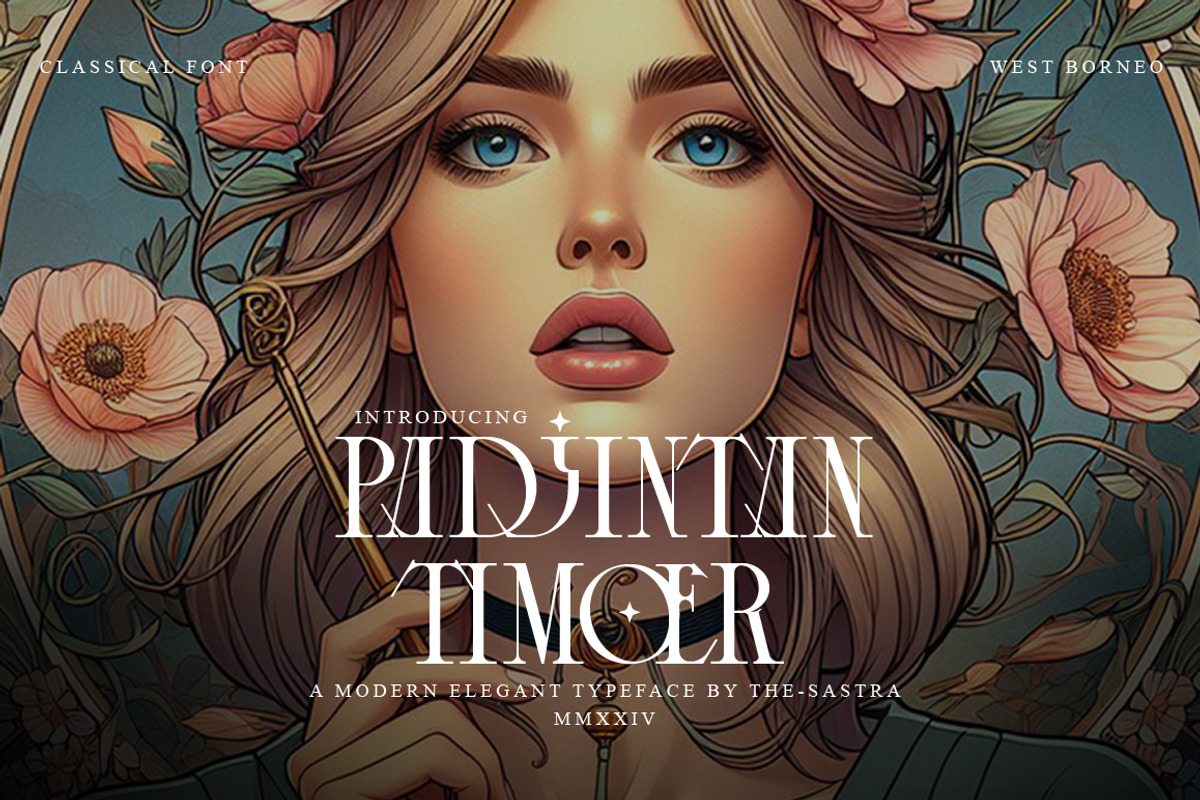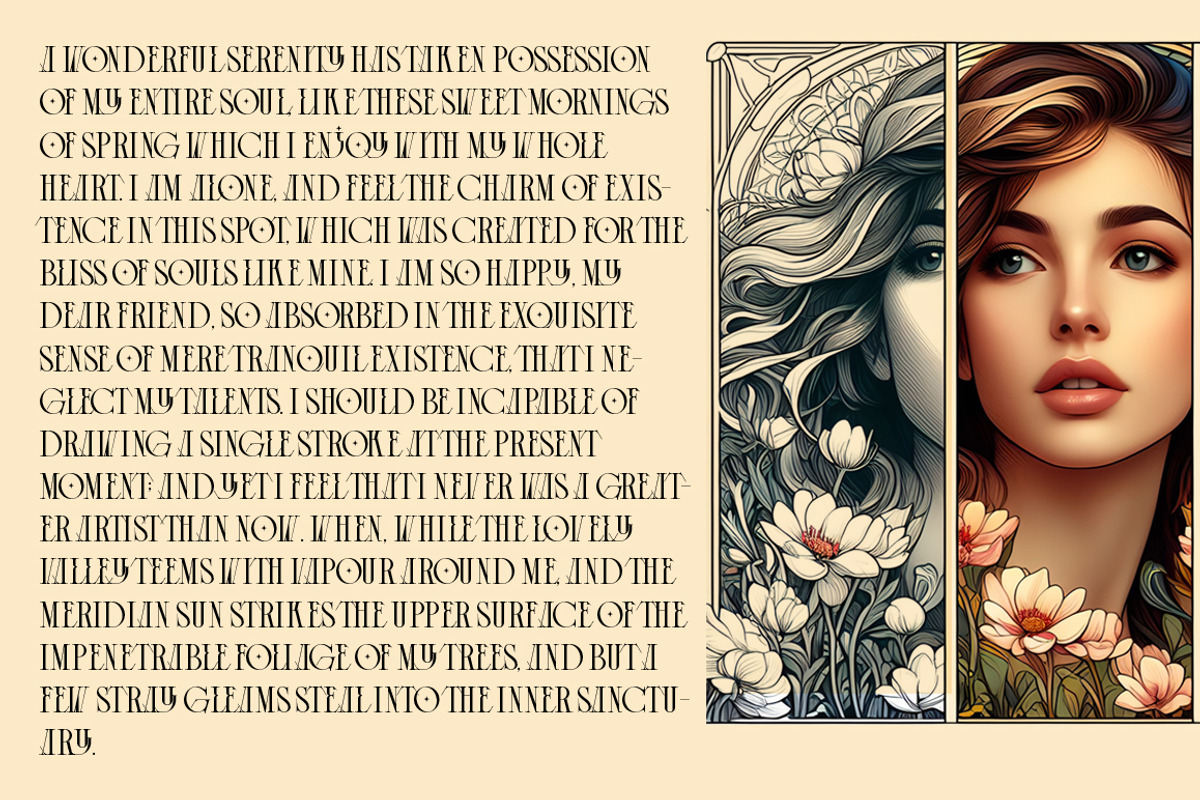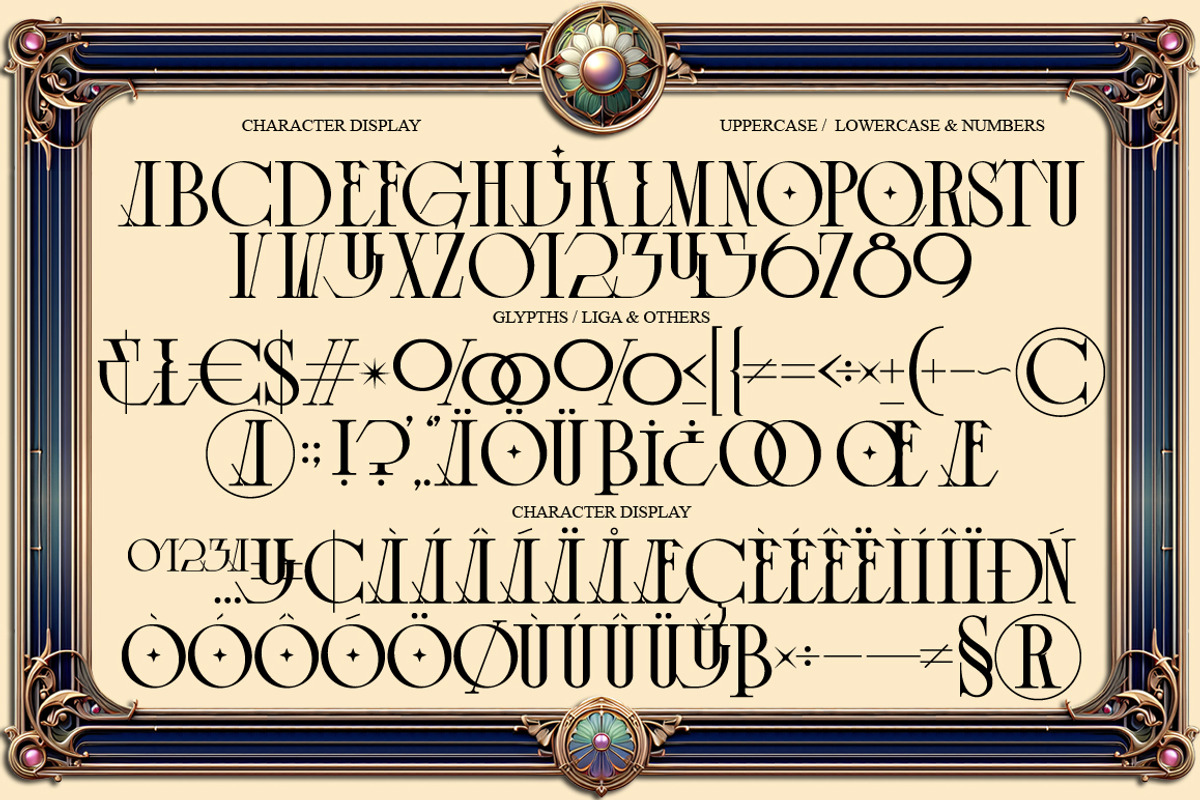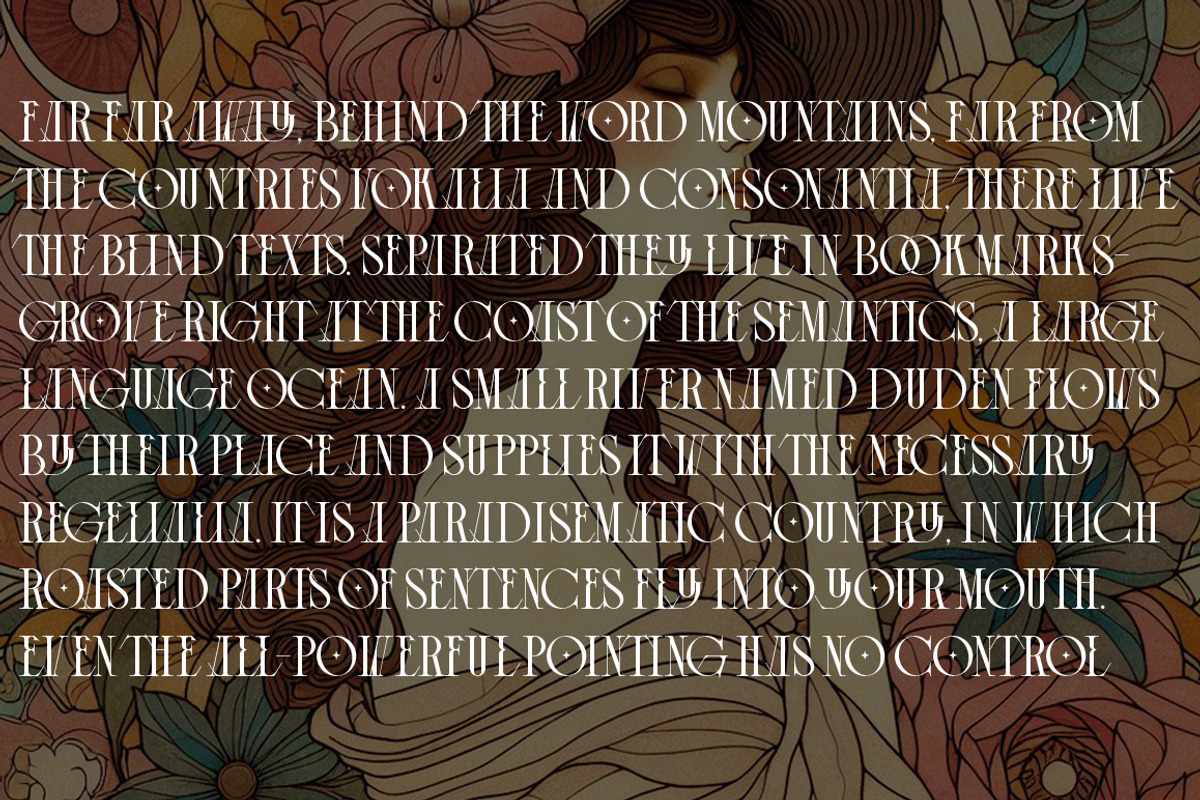
Padjintan timoer
This Padjintan timoer font is inspired by art nouveau style & modern elegant lifestyle. Padjintan timoer font is perfect for badges, branding, labels, apparel, headlines, signage, logo, quote, apparel and other creative applications.